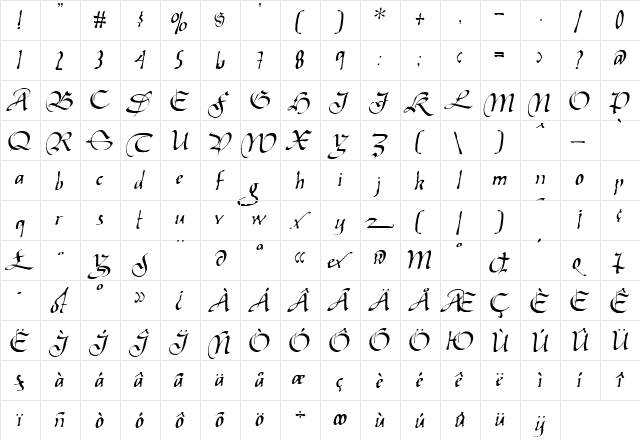
Liefendre Medium
Design Context for Liefendre Typeface
Liefendre is a composed and adaptable typeface that performs quietly and consistently across a wide range of design contexts.